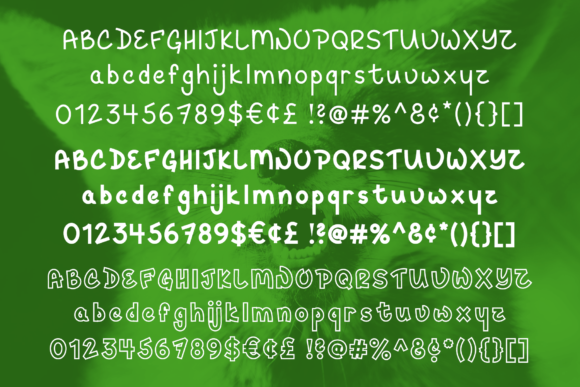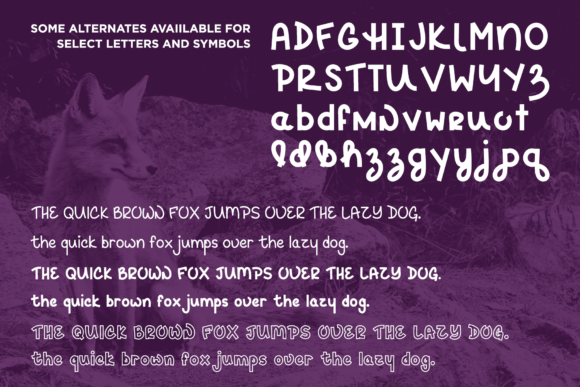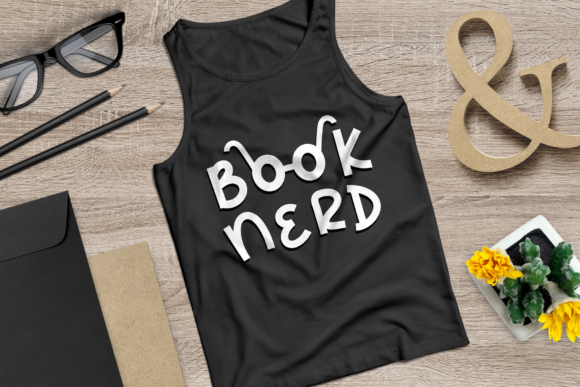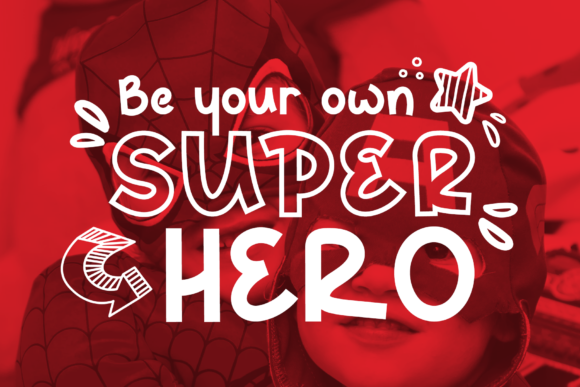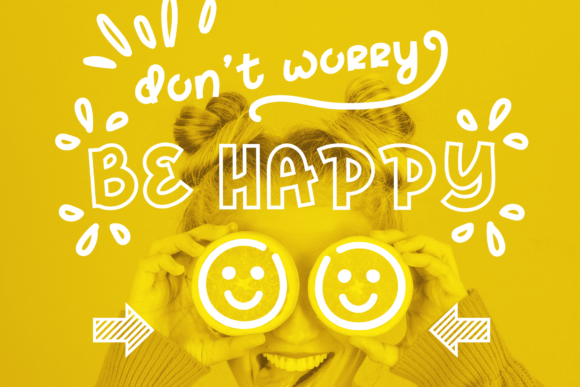
Introduction to Hey Fox Trio Font
The Hey Fox is a handmade font trio with over 90+ BONUS cartoon arrow graphics.
The bonus elements can be altered, edited and play with as much as needed The typeface has a fun and playful look and comes in three styles: regular, bold, and outlined.
Key Features of Hey Fox Trio Font